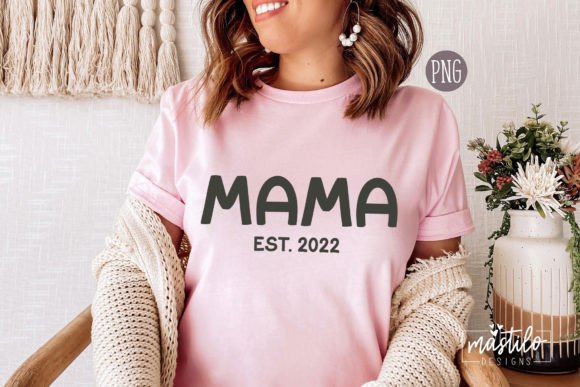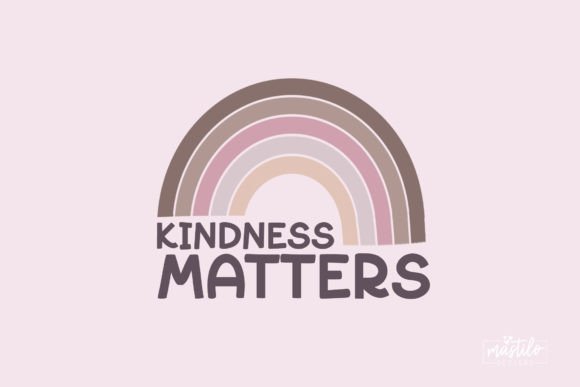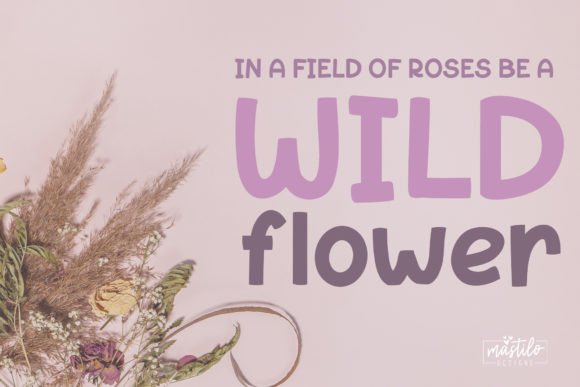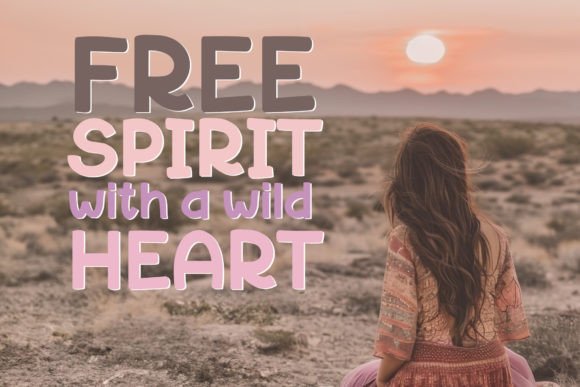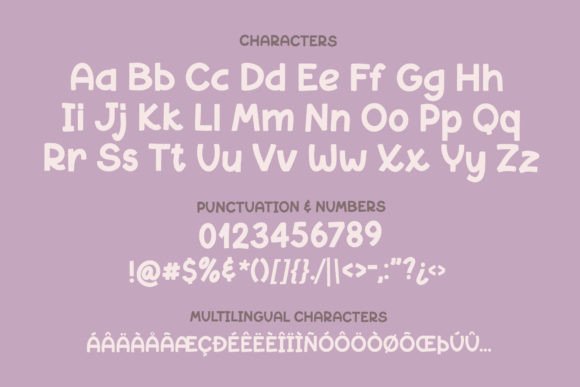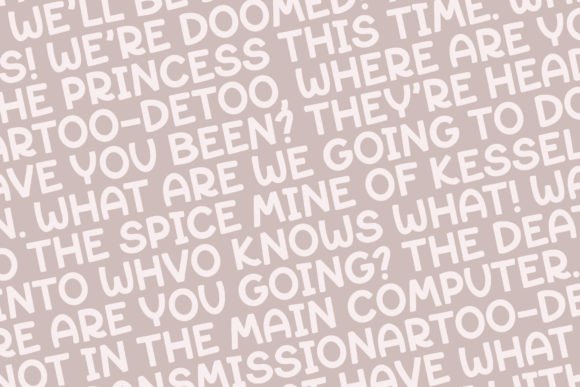
Introducing Desert Rose: The Ultimate Hand-Drawn Sans Serif Display Font
Are you tired of using the same old fonts for your design projects? Look no further! We’re excited to introduce Desert Rose, a stunning hand-drawn Sans Serif display font that’s perfect for designers and crafters alike. With its versatility and unique features, Desert Rose is sure to become your go-to font for all your creative endeavors.
What is Desert Rose Font?
Desert Rose is a carefully crafted Sans Serif display font that’s designed to add a touch of elegance and sophistication to your designs. Its hand-drawn style gives it a personal and distinctive feel, making it perfect for a wide range of projects. Whether you’re a designer, crafter, or DIY enthusiast, Desert Rose is an excellent choice for anyone looking to add some flair to their work.
Key Features of Desert Rose Font
So, what makes Desert Rose so special? Here are some of its key features:
- Hand-drawn style: Desert Rose is a unique, hand-drawn font that’s been carefully crafted to give it a personal touch.
- Sans Serif display font: Its clean and modern Sans Serif design makes it perfect for display purposes.
- Versatile: Desert Rose can be used for a wide range of projects, from logos and branding to social media templates and craft projects.
- Color-changing uppercase strokes: One of the most exciting features of Desert Rose is the ability to change the uppercase strokes to different colors, making it a great craft font for all your projects.
Use Cases for Desert Rose Font
So, what can you use Desert Rose for? The possibilities are endless! Here are some ideas to get you started:
- Logos and branding: Use Desert Rose to create stunning logos and branding materials that will set your business apart.
- Retro shirt designs and apparel: Create eye-catching retro-style shirt designs and other apparel that will make your customers stand out.
- Stickers and phone cases: Desert Rose is perfect for designing stickers and phone cases that will add a touch of personality to any device.
- Home decor: Use Desert Rose to create beautiful home decor items, such as wall art, signs, and more.
- Social media templates and Instagram quotes: Create stunning social media templates and Instagram quotes that will make your feed stand out.
- Cricut and silhouette projects: Desert Rose is perfect for Cricut and silhouette projects, such as paper crafts, vinyl decals, and more.
- Procreate and digital art: Use Desert Rose to add a touch of elegance to your Procreate and digital art projects.
Why Choose Desert Rose Font?
So, why should you choose Desert Rose for your design projects? Here are just a few reasons:
- Unique and distinctive: Desert Rose is a one-of-a-kind font that’s sure to make your designs stand out.
- Versatile: Desert Rose can be used for a wide range of projects, making it a great addition to any designer’s toolkit.
- High-quality design: Desert Rose has been carefully crafted to ensure that it’s of the highest quality, with clean lines and precise curves.